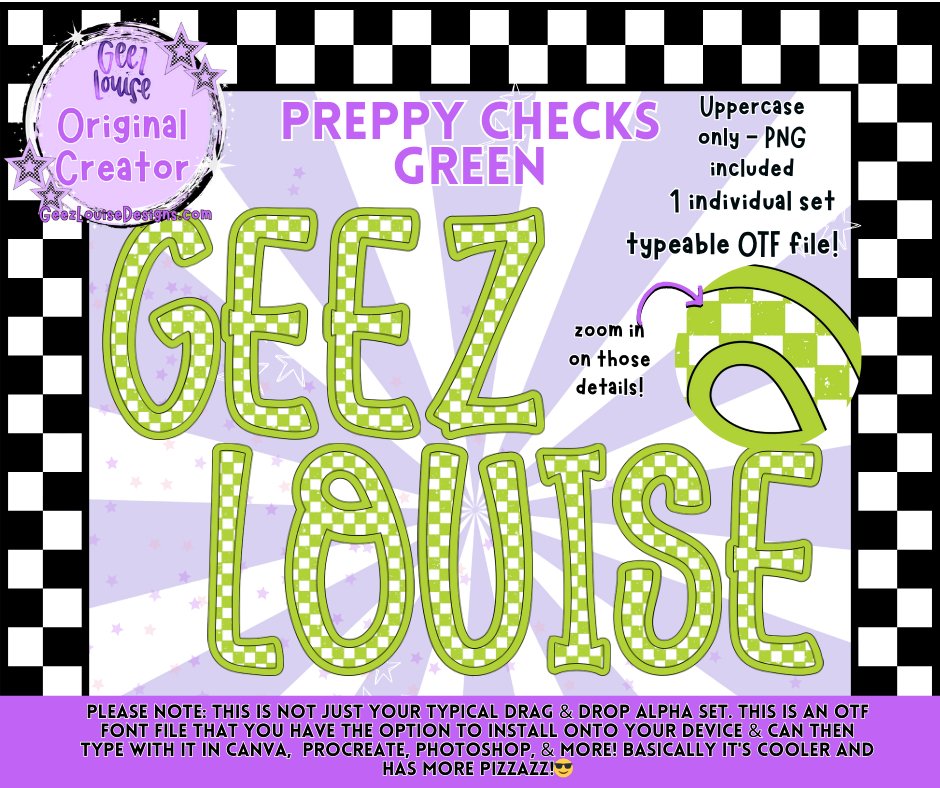
Preppy Checks Green Alpha Font | OTF & PNG Letters
💚 Add fresh and playful style to your projects with the Preppy Checks Green Alpha Font! 💚
This trendy set features green and white checkered patterns with a bold preppy twist, making it perfect for everything from school spirit designs to spring and St. Patrick’s Day creations.
💡 Why you’ll love it:
• Fun preppy check pattern in a fresh green palette.
• Perfect for school colors, St. Patrick’s Day, spring themes, and preppy-inspired designs.